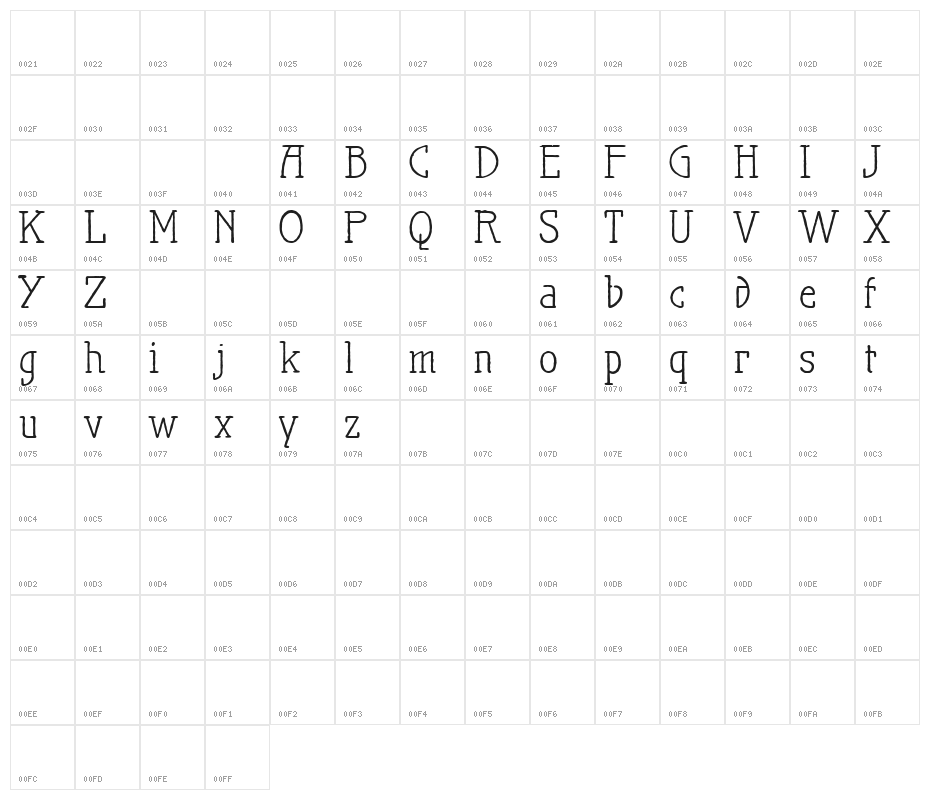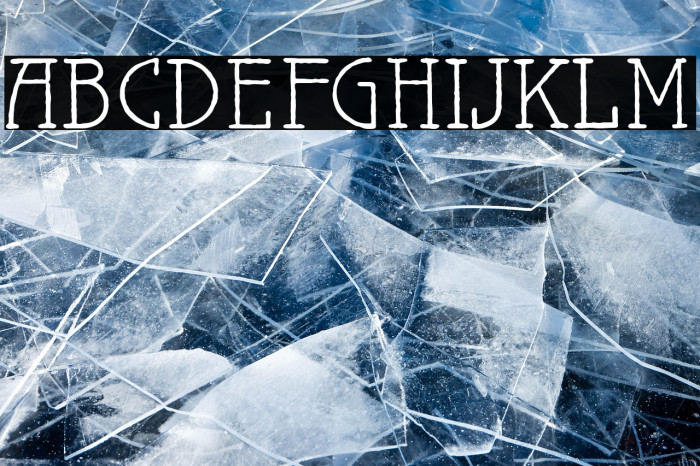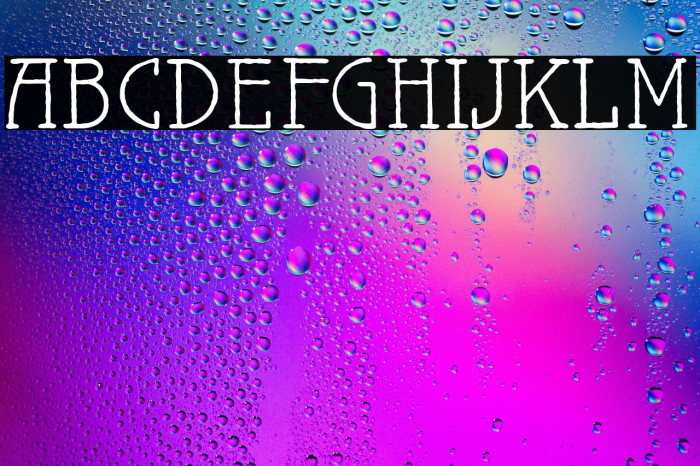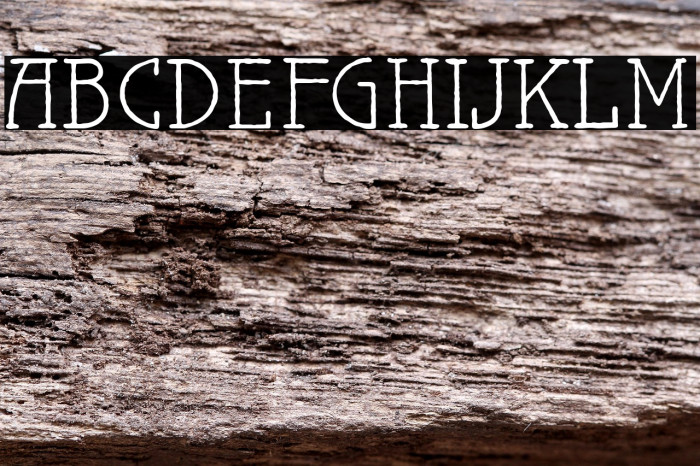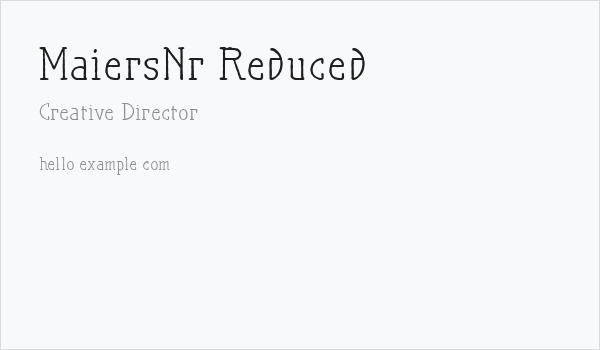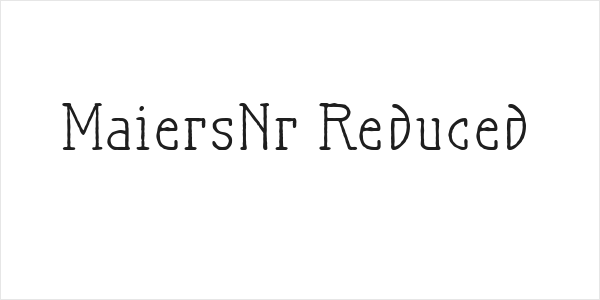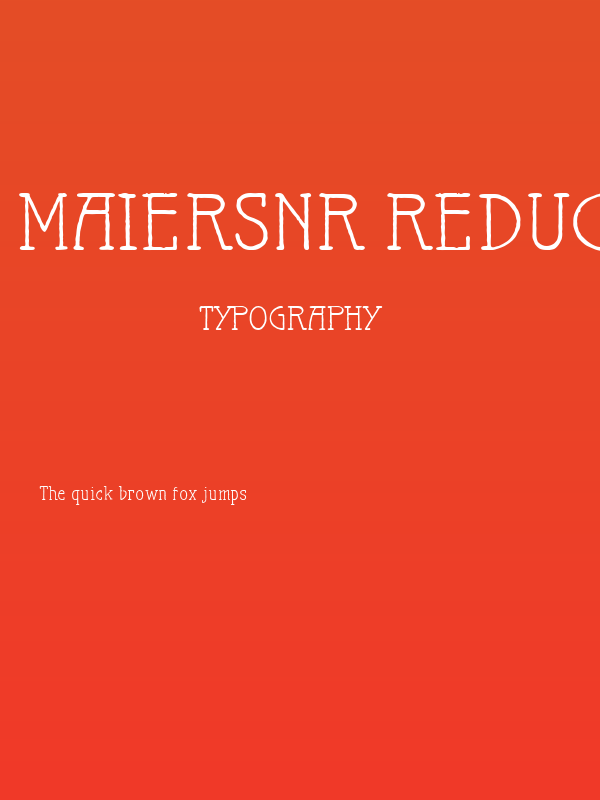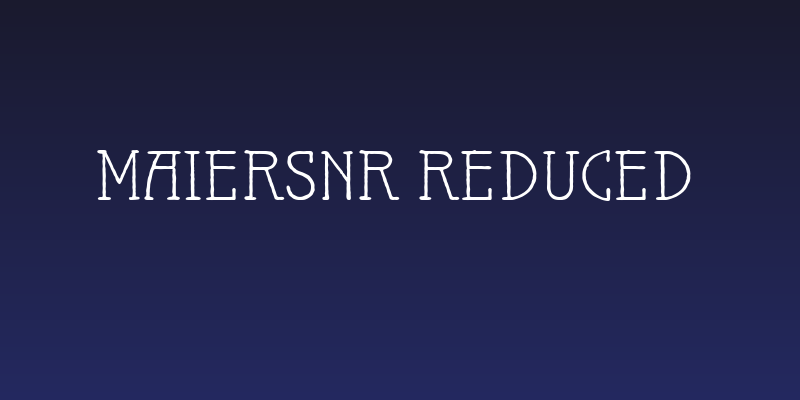
MaiersNr.Reduced Font
MaiersNr.Reduced Description
This font exhibits a unique, handcrafted style with a slightly irregular and organic appearance. The characters have a distinct, artistic flair, featuring subtle variations in stroke width that add a touch of whimsy and charm. The uppercase letters are bold and commanding, while the lowercase letters maintain a playful yet legible form. The overall design is reminiscent of vintage or historical scripts, with a modern twist that makes it suitable for contemporary projects. The font's quirky and distinctive character makes it ideal for creative and artistic applications.
| Overall Style | Vintage, Artistic |
| Use Case | Headlines, Artistic designs, Branding |
| Proposed Projects | Ideal for creative projects such as invitations, posters, branding, and artistic designs. |